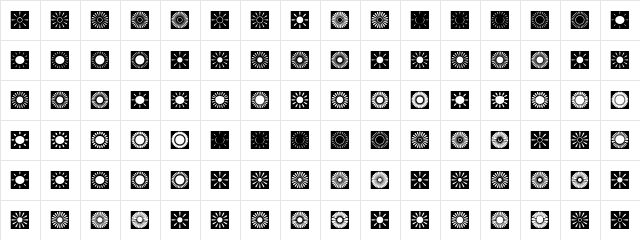
Nikkoo01 Regular
Design Context for Nikkoo01
Nikkoo01 is a composed and adaptable typeface that performs quietly and consistently across a wide range of design contexts.